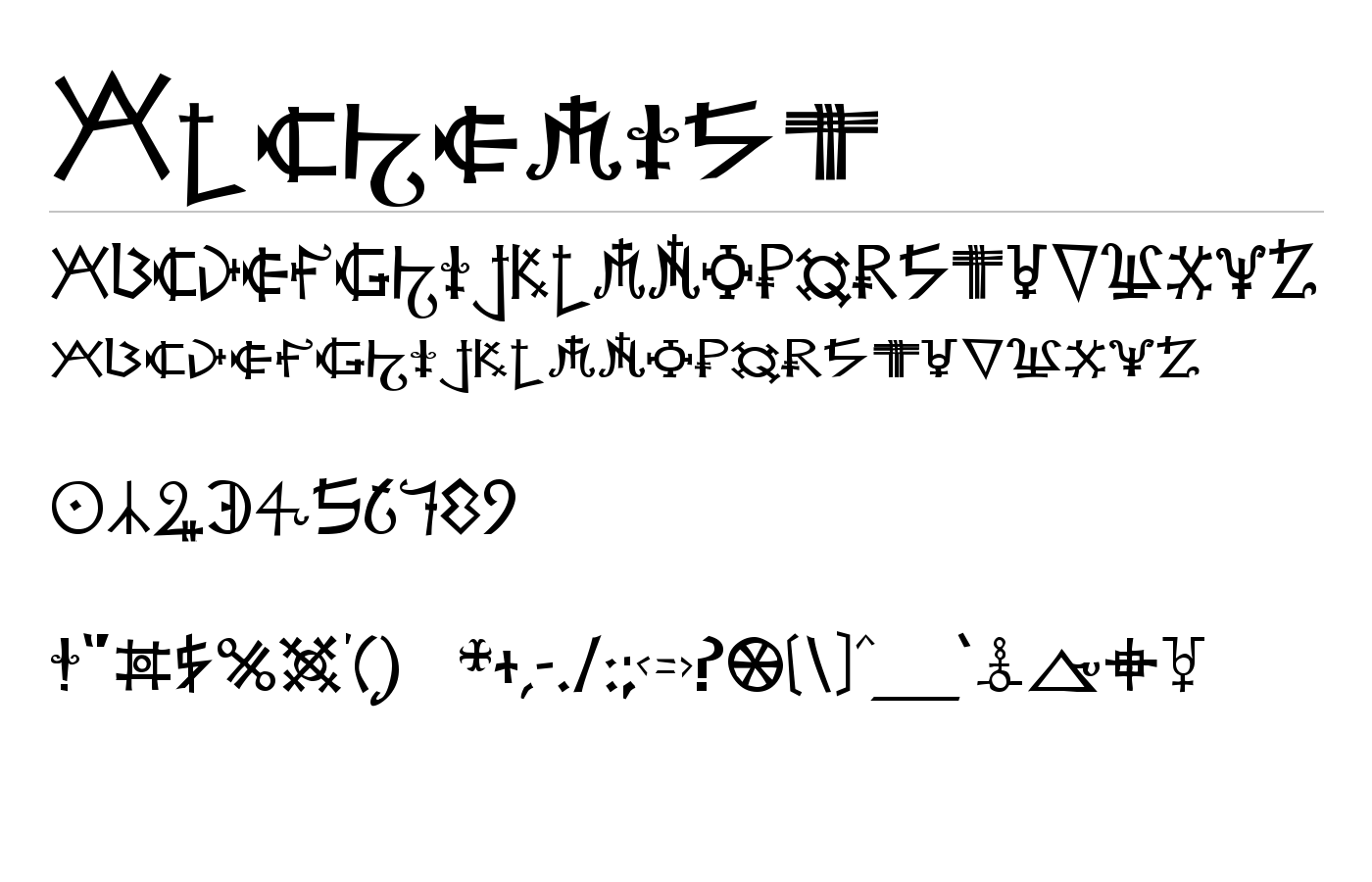
Alchemist Font is a distinctive, decorative typeface with a mystical, ancient vibe, featuring sharp, angular strokes combined with playful, mysterious symbols. Its design is bold yet intricate, perfect for creating a magical or esoteric atmosphere in headlines, logos, or themed branding where a unique, eye-catching style is desired. This font excels in contexts that call for a striking, unconventional look rather than extended body text.
Alchemist Font